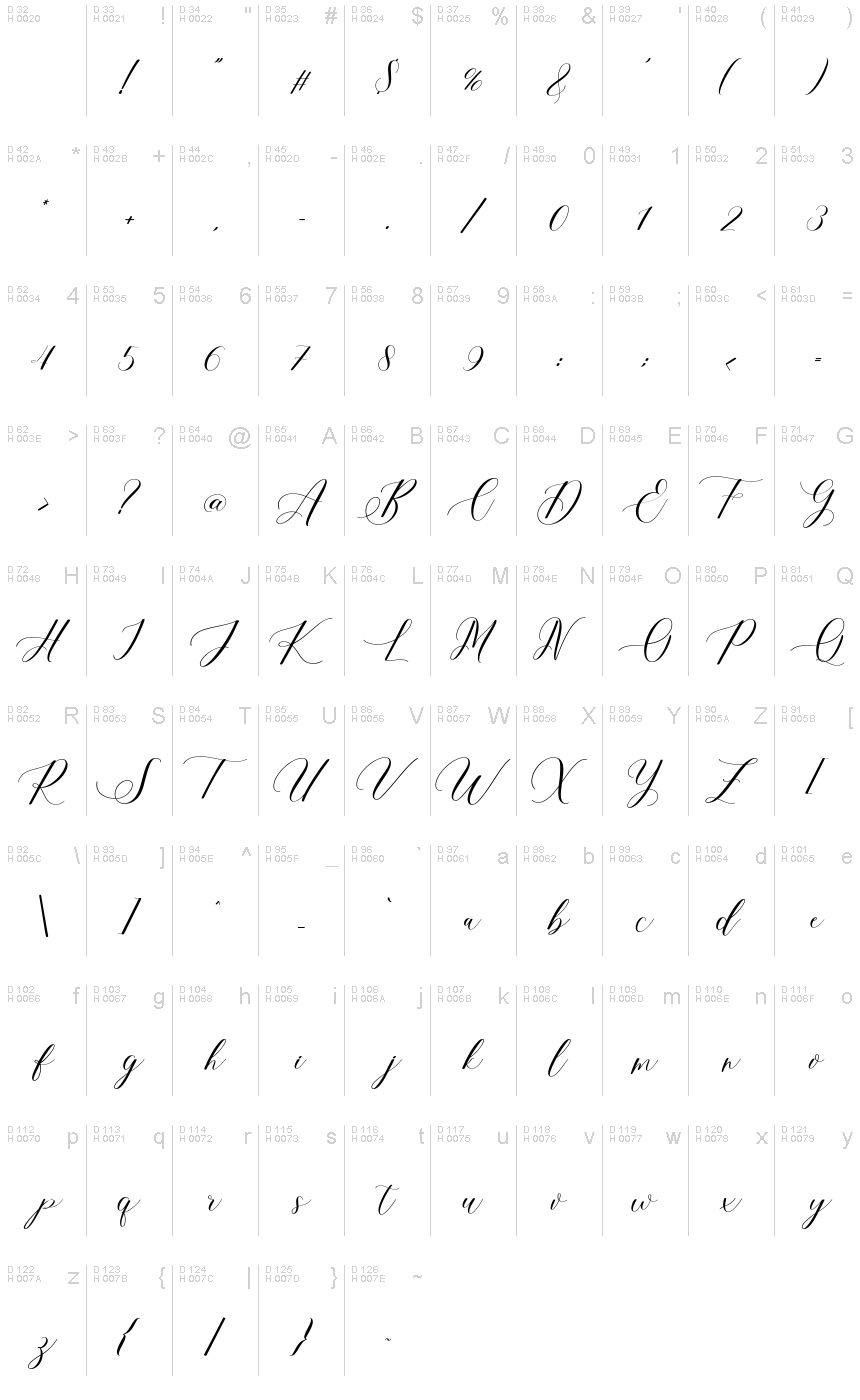
Clariesty, envisioned by the creative Makashi, is a semi-light calligraphy font that exudes elegance and refinement. Its sweeping curves and fine lines are reminiscent of traditional calligraphic artistry while maintaining a modern sensibility that speaks to contemporary design aesthetics. The delicate weight of Clariesty lends itself to an array of creative projects, from wedding invitations and branding materials to digital graphics and print media.
The font's aesthetic appeal lies in its harmonious balance between classic calligraphy and versatile modernity. Each character is crafted with precision, ensuring clarity in both large displays and more intimate text scenarios. With Clariesty, designers can effortlessly imbue their creations with a personal touch that resonates with sophistication and timeless allure.
Whether you're aiming for the romance of hand-lettered design or the crispness of professional typography, Clariesty stands ready to elevate your project with its unique charm and style.